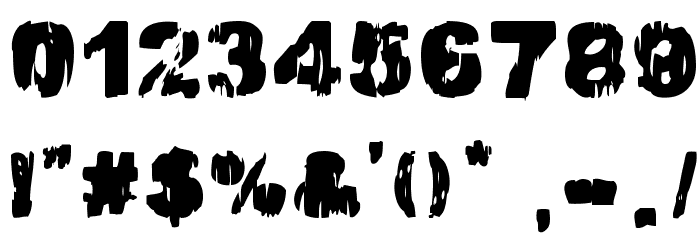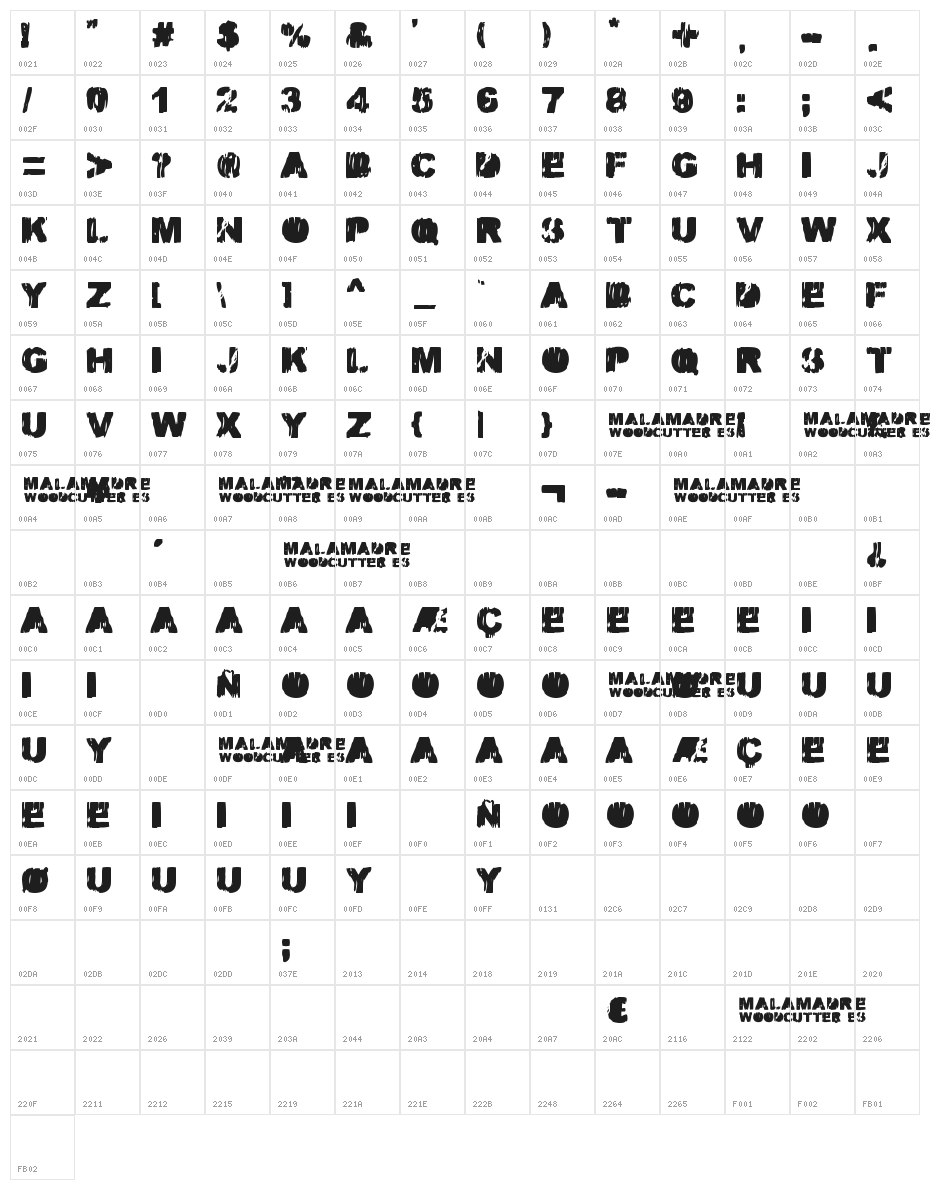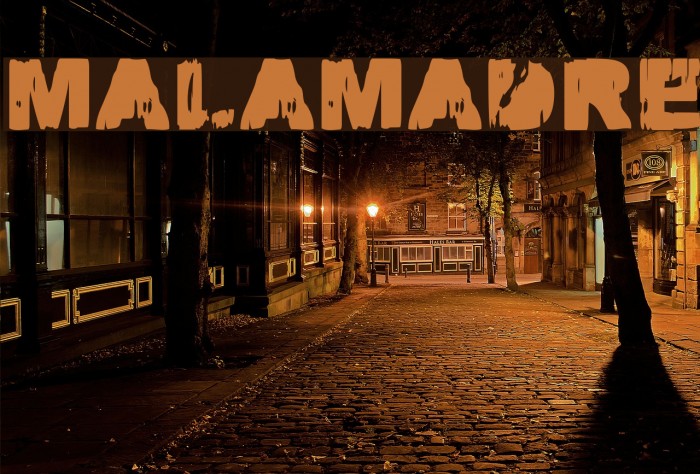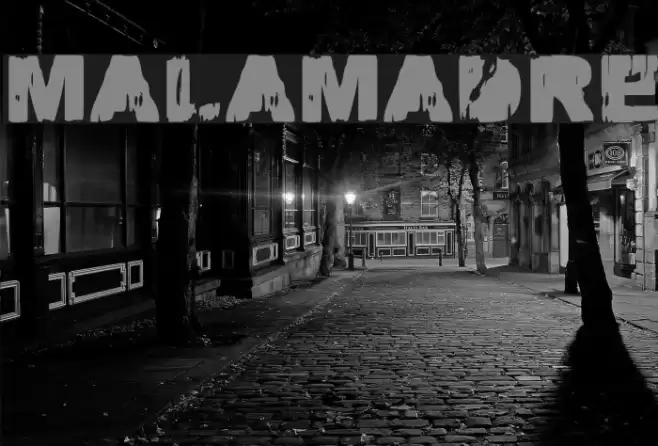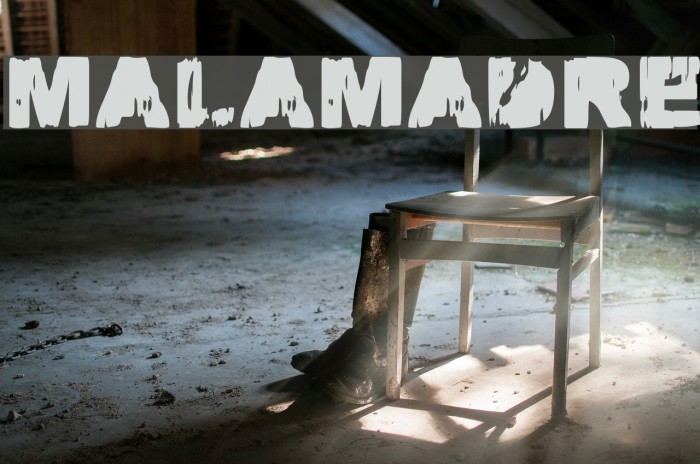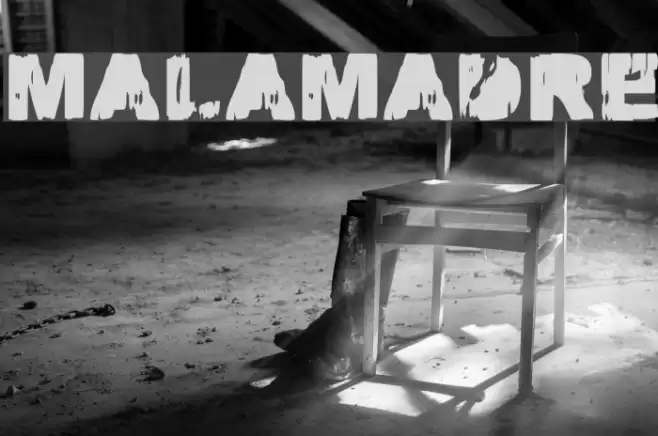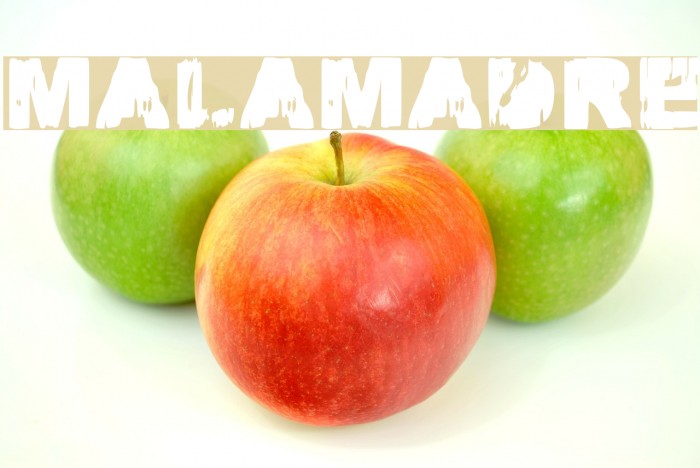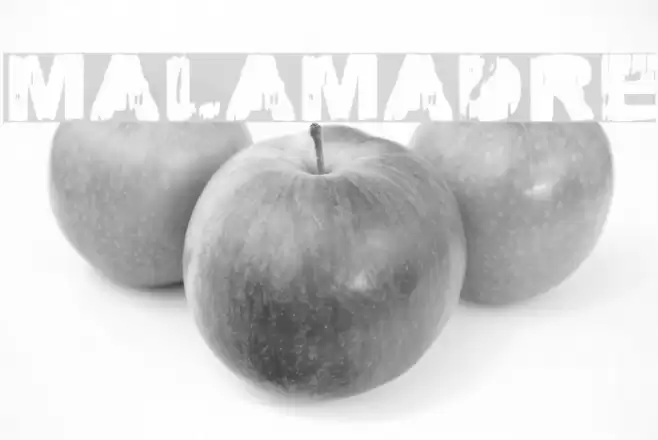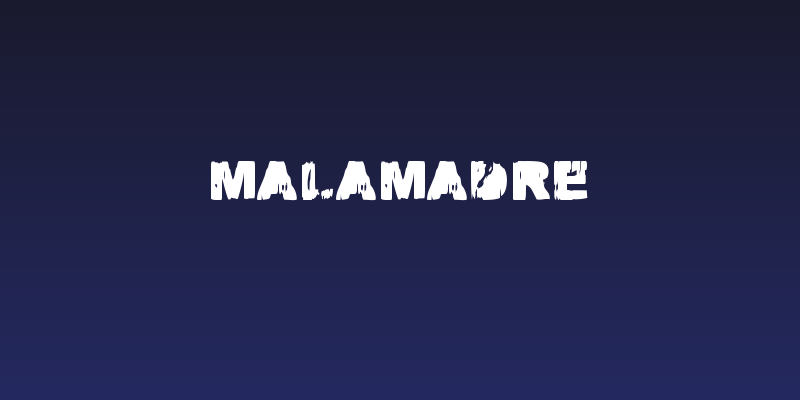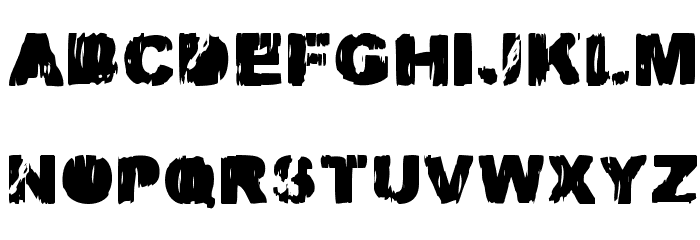
MALAMADRE Font
MALAMADRE Description
This font features a bold, distressed style with a rugged and textured appearance. The characters are heavily stylized, with irregular edges and a worn-out look that gives them a unique, grunge aesthetic. The uppercase and lowercase letters maintain a consistent weight, creating a cohesive visual impact. The numbers and special characters follow the same design pattern, ensuring uniformity across all glyphs. This font's boldness and distinctive style make it stand out, perfect for projects that require a strong visual statement.
| Overall Style | Grunge, Urban, Edgy |
| Proposed Projects | Ideal for album covers, posters, urban-themed designs, and branding that requires a gritty, edgy look. |